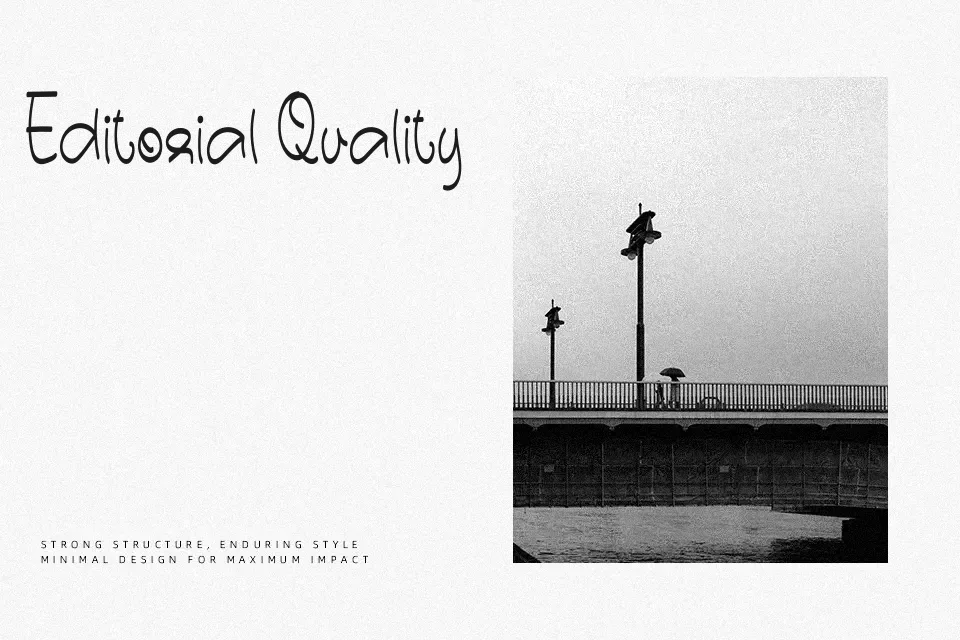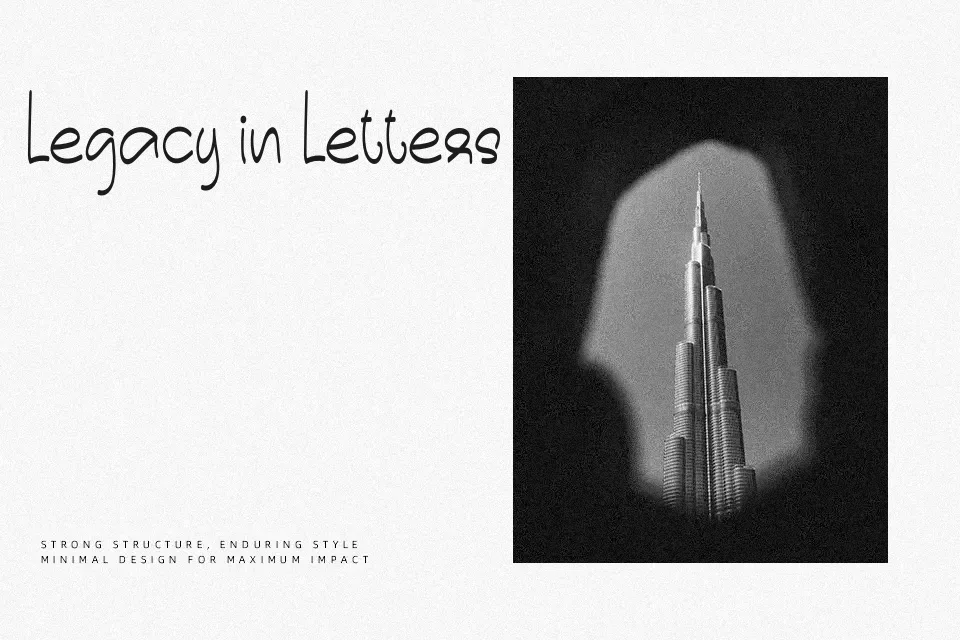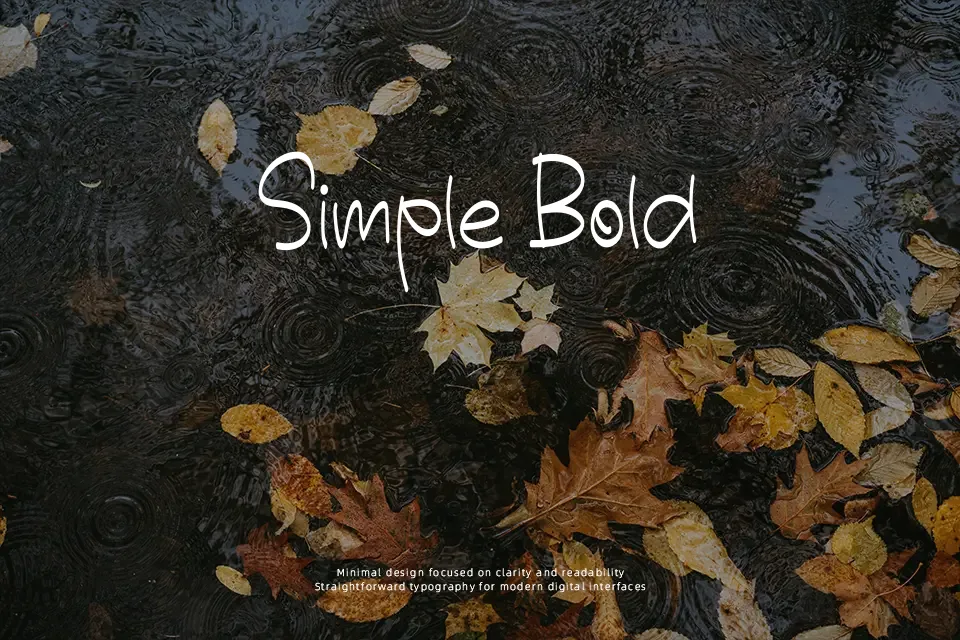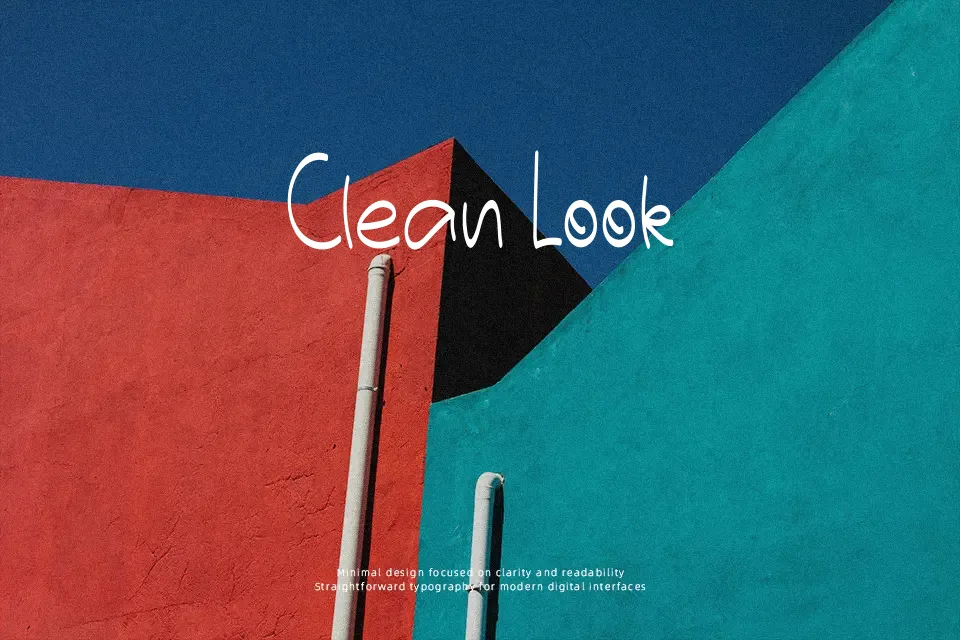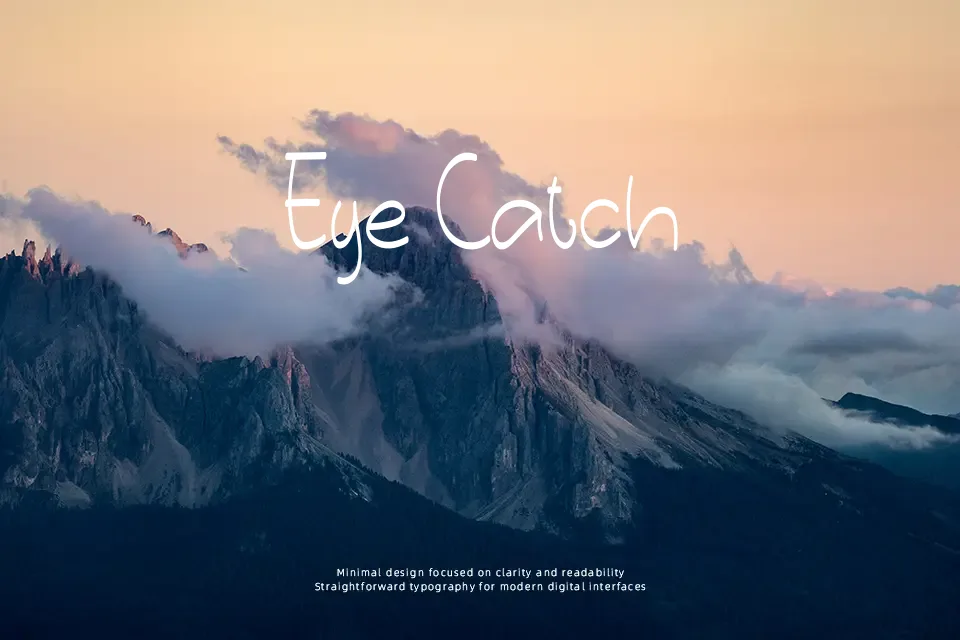
Snowman Font
Snowman Font presents an informal display design shaped by lively, hand-drawn character geometry and relaxed stroke contours. Distinct outer curves and softly rounded terminals give the letterforms an approachable, energetic rhythm across short textual arrangements. Balanced horizontal spacing ensures each character maintains visual isolation, which prevents visual clutter when rendered at moderate to large scale. Because the glyph shapes incorporate whimsical contours, dense compositions and multi-line body paragraphs become visually fatiguing. The typeface performs best when displayed at larger sizes where its expressive personality enriches festive graphics, winter marketing posters, and children’s project titles.
Best For: holiday greeting cards, winter event posters, children’s book titles, seasonal product packaging
Not Ideal For: continuous body text, small interface labels, dense corporate documents, technical spreadsheets
Perfect for christmas, headline, and holiday, with a creative and comic style.